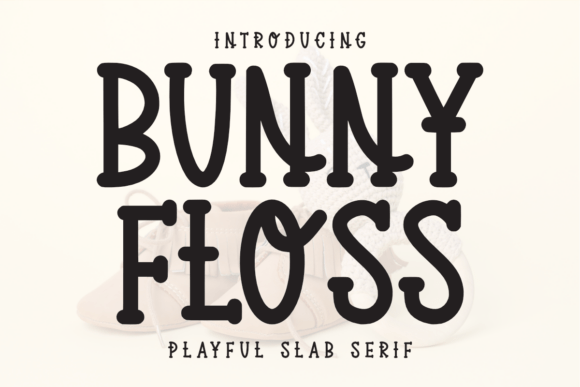
Bunny Floss Font: The Ultimate Guide to a Quirky and Cheerful Slab Serif Font
Are you looking for a font that can add a dash of fun and playfulness to your design project? Look no further than the Bunny Floss font! This quirky and cheerful slab serif font is full of energy and charm, making it perfect for a variety of applications, from storybooks and children’s games to posters and more.
What is Bunny Floss Font?
Bunny Floss is a bold, eye-catching slab serif font that is sure to make your design smile. With its playful proportions and chunky slab ends, this font brings a joyful, kid-friendly vibe that is perfect for any project that needs a dose of fun. Whether you’re designing a children’s book, a game, or a poster, Bunny Floss is the perfect choice.
Key Features of Bunny Floss Font
So, what makes Bunny Floss font so special? Here are just a few of its key features:
- Playful proportions: Bunny Floss has a unique and playful take on traditional slab serif fonts. Its proportions are carefully crafted to create a sense of energy and movement.
- Chunky slab ends: The chunky slab ends of Bunny Floss give it a bold and eye-catching look that’s perfect for headlines and titles.
- Cheerful and kid-friendly vibe: Bunny Floss has a joyful and playful vibe that’s perfect for children’s projects, such as storybooks, games, and posters.
- Bold and eye-catching: With its bold and chunky design, Bunny Floss is sure to grab attention and make your design stand out.
Uses for Bunny Floss Font
So, what can you use Bunny Floss font for? The possibilities are endless! Here are just a few ideas to get you started:
- Storybooks: Bunny Floss is perfect for storybooks, with its playful and kid-friendly vibe making it a great choice for children’s literature.
- Children’s games: Add a dash of fun to your children’s game with Bunny Floss font. Its bold and eye-catching design is sure to appeal to kids.
- Posters: Whether you’re designing a poster for a children’s event or a fun promotion, Bunny Floss is a great choice.
- Headlines and titles: With its bold and chunky design, Bunny Floss is perfect for headlines and titles.
Why Choose Bunny Floss Font?
So, why should you choose Bunny Floss font for your design project? Here are just a few reasons:
- Unique and playful design: Bunny Floss has a unique and playful design that’s sure to make your project stand out.
- Kid-friendly vibe: Bunny Floss has a cheerful and kid-friendly vibe that’s perfect for children’s projects.
- Bold and eye-catching: With its bold and chunky design, Bunny Floss is sure to grab attention.
- Versatile: Bunny Floss can be used for a variety of applications, from storybooks to posters.
Tips for Using Bunny Floss Font
Here are a few tips for using Bunny Floss font in your design project:
- Use it for headlines and titles: Bunny Floss is perfect for headlines and titles, with its bold and chunky design making it easy to read.
- Pair it with a simple font: For body text, pair Bunny Floss with a simple font to create a nice contrast.
- Experiment with colors: Bunny Floss looks great in a variety of colors, so don’t be afraid to experiment and find the perfect hue for your project.
In conclusion, Bunny Floss font is a quirky and cheerful slab serif font that’s perfect for adding a dash of fun to your design project. With its playful proportions, chunky slab ends, and bold and eye-catching design, Bunny Floss is sure to make your project smile. Whether you’re designing a storybook, a children’s game, or a poster, Bunny Floss is a great choice.